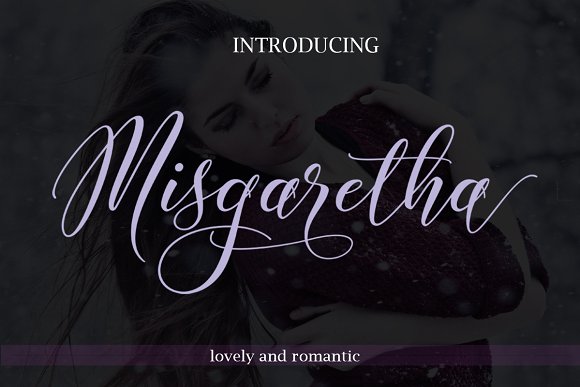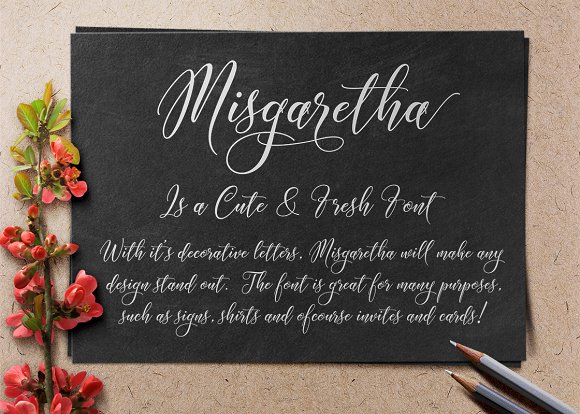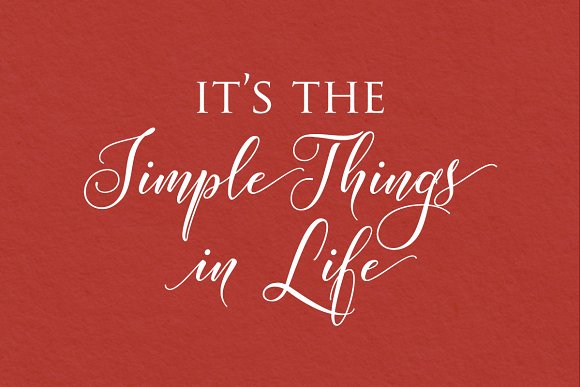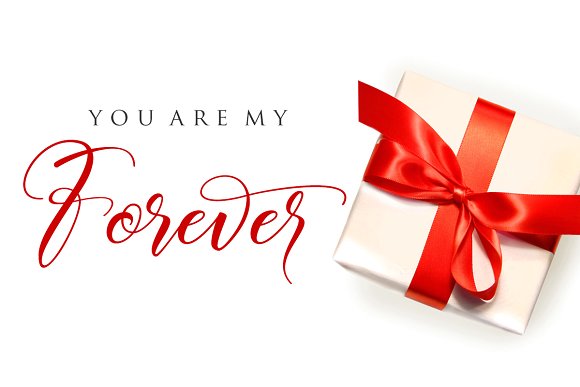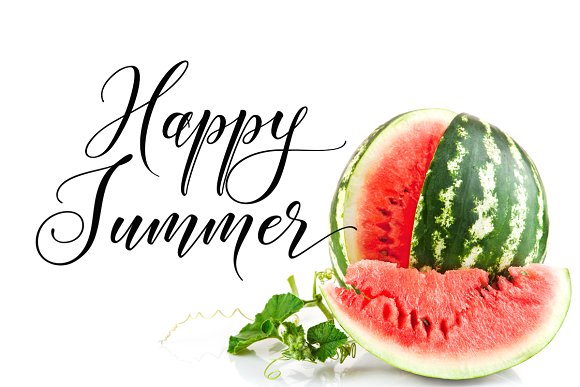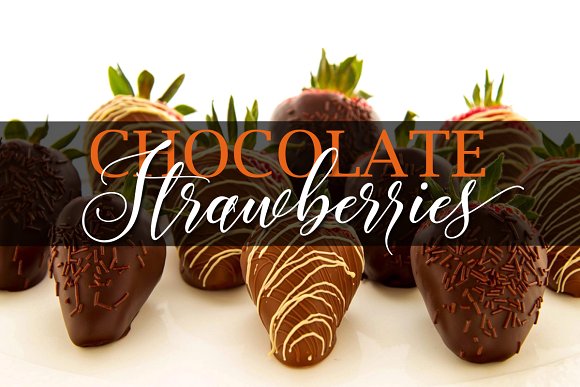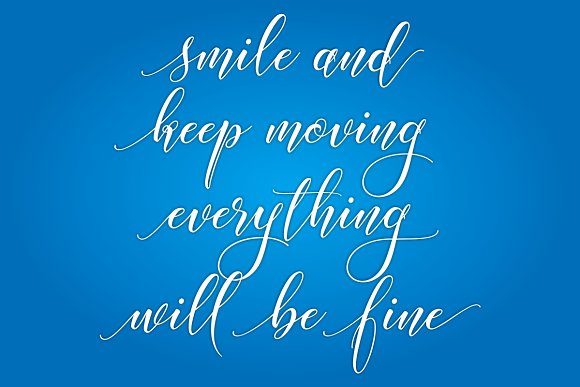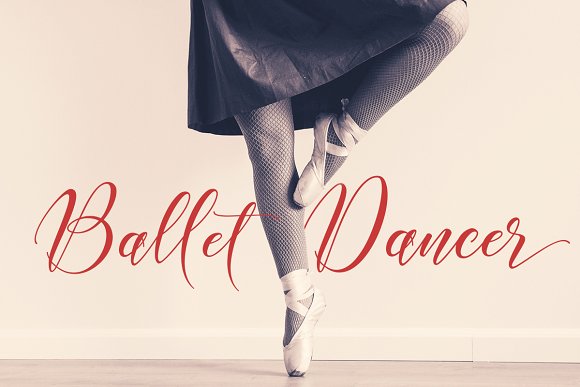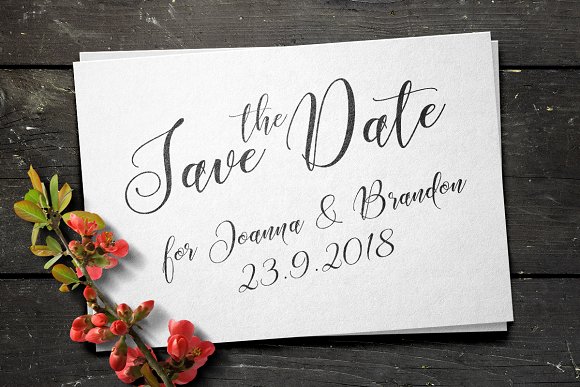
Misgaretha Font
About Misgaretha Font
Misgaretha is a hand drawn font that is packed with stunning characters. This fluid font can be used for many types of personal projects.